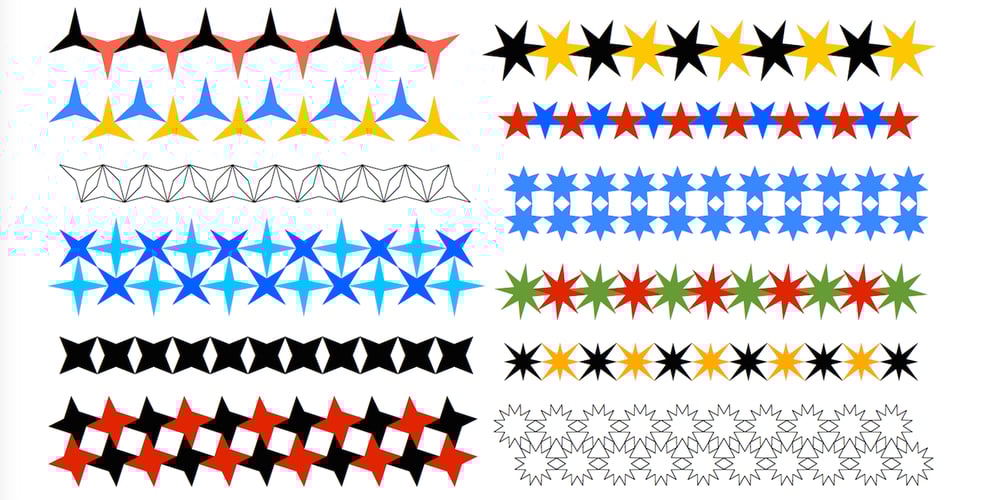
Ingy Star Tilings Font Family was designed by Robert Schenk and published by Ingrimayne Type. Ingy Star Tilings contains 2 styles and family package options. IngyStarTilings allows one to create a variety of patterns that have stars. Some of them are quite common and others less so. A sample file is available that shows possible patterns that can be constructed with this typeface, including some non-star repeating patterns. As the posters indicate, some of the patterns constructed with the regular version are intended to be multicolored.